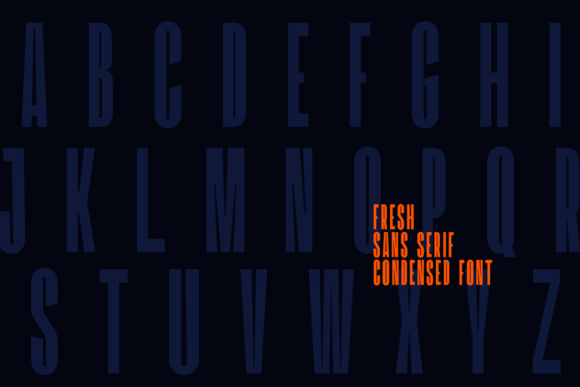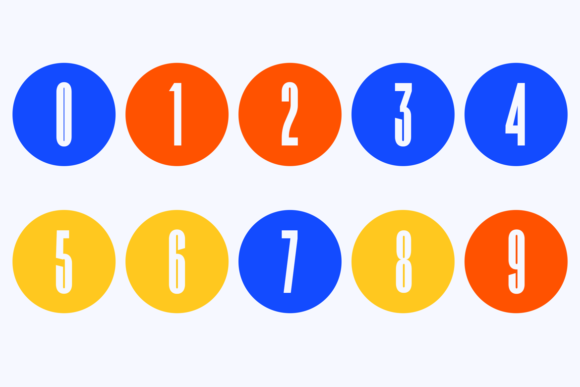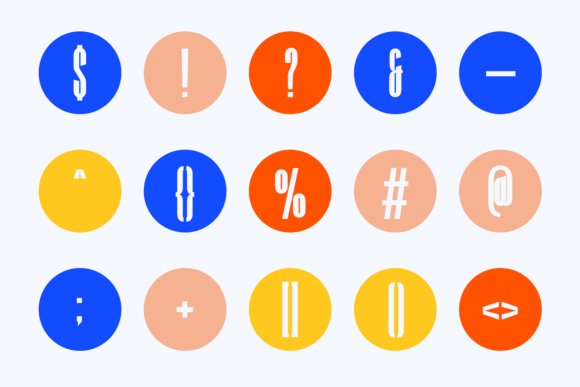
Introduction to Millenium Font Font
Fonts play a crucial role in design, and the Millenium Font font is a typeface that brings both character and versatility to any project. Whether you’re working on a branding project, a website, or a print design, the Millenium Font font offers a unique style that can elevate your work.
Millenium is a bold, condensed sans serif font with asymmetric elements.
It can be used in a vast variety of projects, such as logos & branding, posters, or for layout of magazine publishing houses .
Key Features of Millenium Font Font
Why Choose Millenium Font Font?
The Millenium Font font is more than just a typeface – it’s a design tool that helps you communicate your message with style and clarity. Its unique character set and versatile design make it suitable for a wide range of applications, from elegant invitations to bold headlines.
With its carefully crafted letterforms and balanced proportions, the Millenium Font font ensures readability and visual appeal across all mediums.
What makes Millenium Font font special?
The Millenium Font font stands out with its unique design, exceptional readability, and versatility across various design applications.